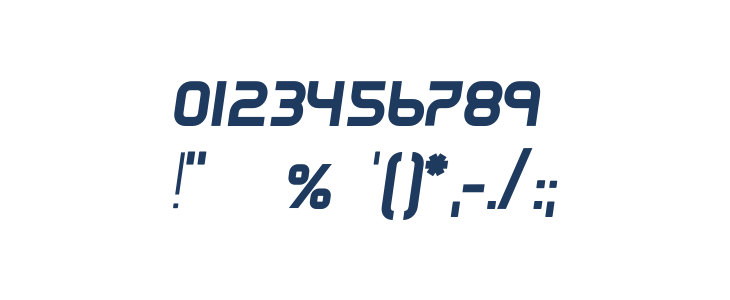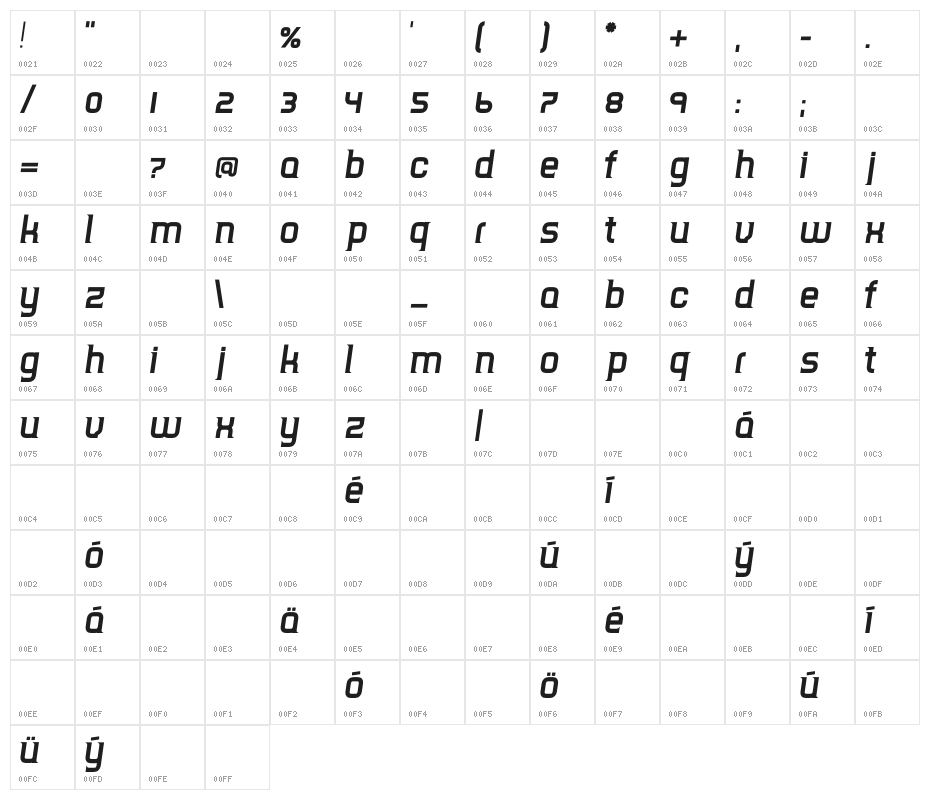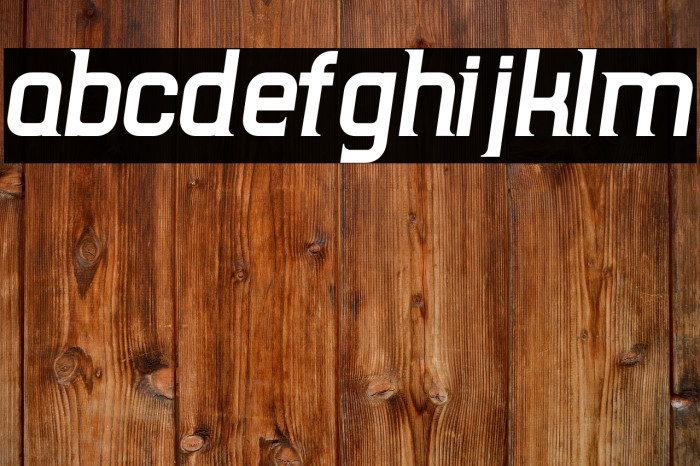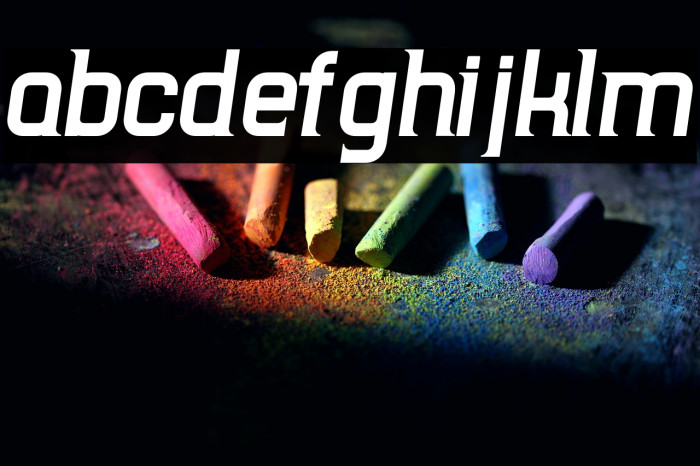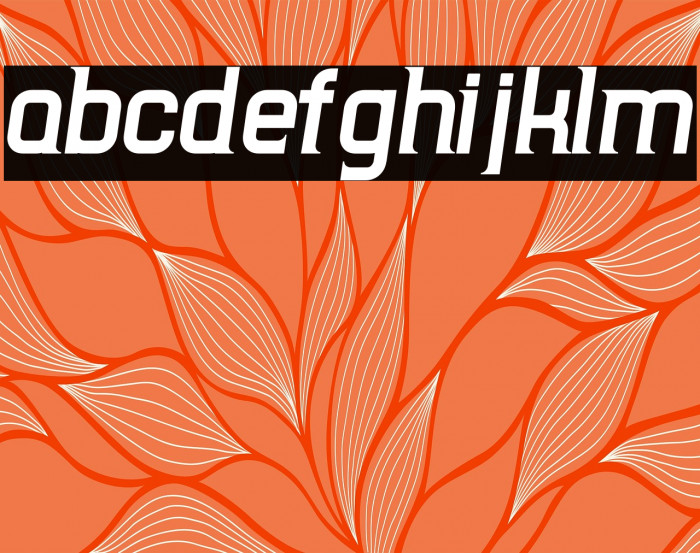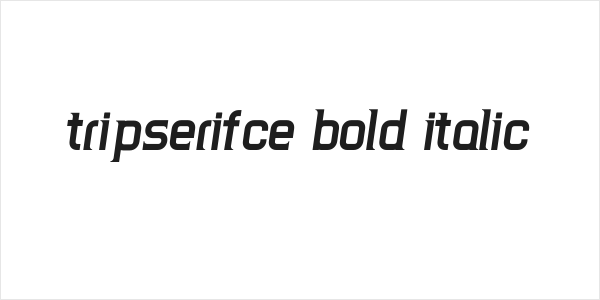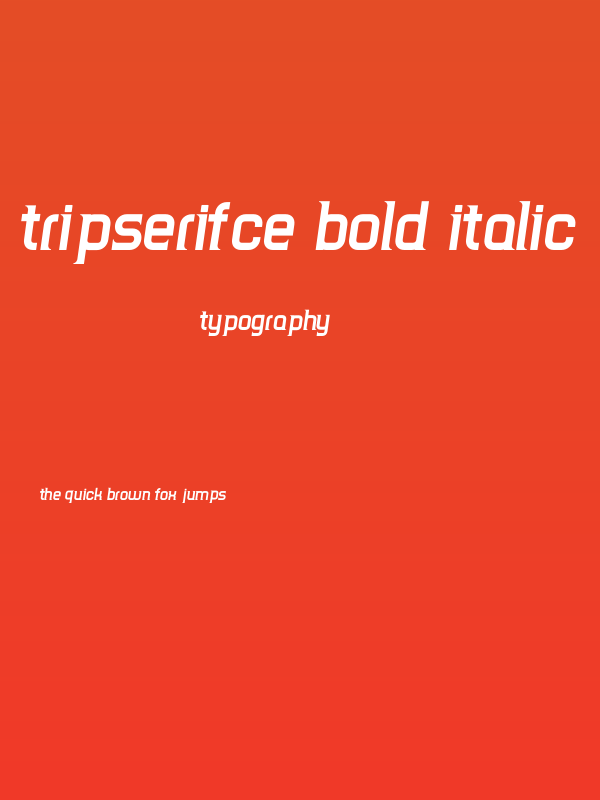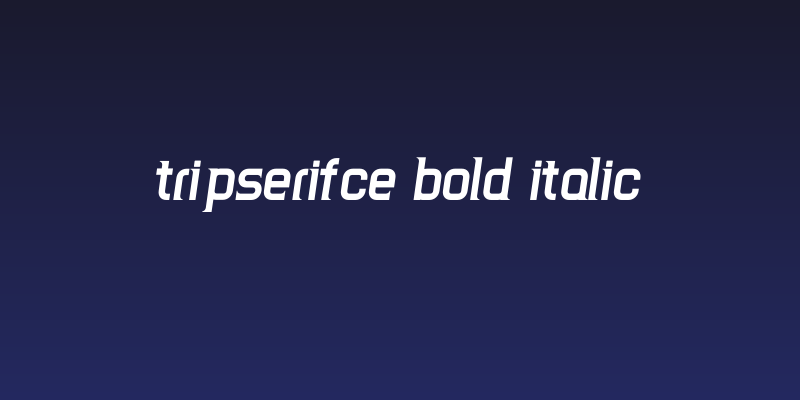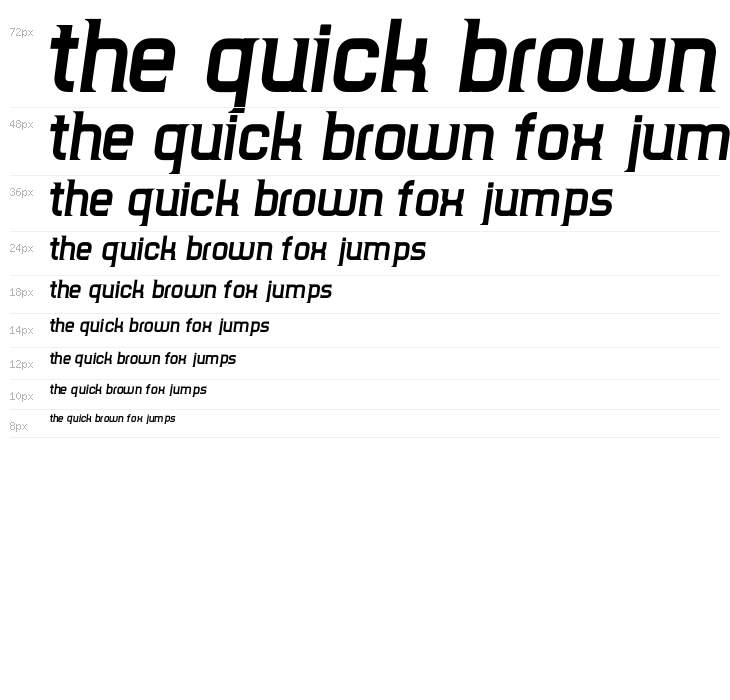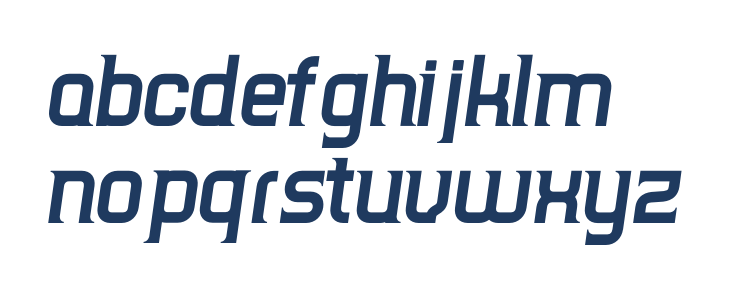
TripSerifCE Bold Italic Font
TripSerifCE Bold Italic Description
This font exhibits a bold and italic style, characterized by its dynamic and forward-leaning appearance. The letters are well-defined with a consistent stroke width, providing a strong visual impact. The italic slant adds a sense of motion and energy, making it suitable for attention-grabbing designs. The numerals and special characters maintain the same bold and italicized style, ensuring uniformity across all glyphs. The overall design is modern and sleek, with a slight geometric influence that enhances its readability and aesthetic appeal.
| Proposed Projects | Ideal for branding, headlines, posters, and any design requiring a strong, modern typeface. |